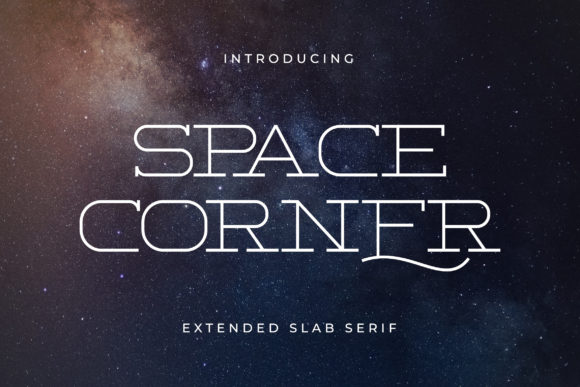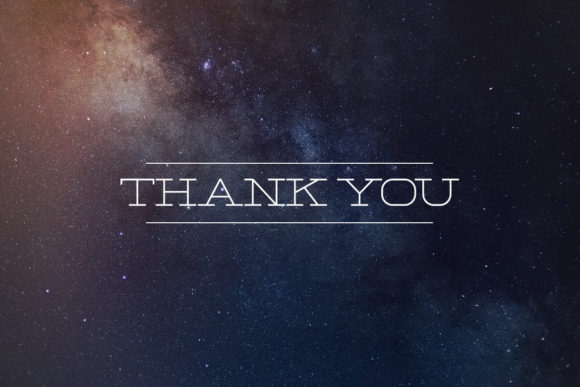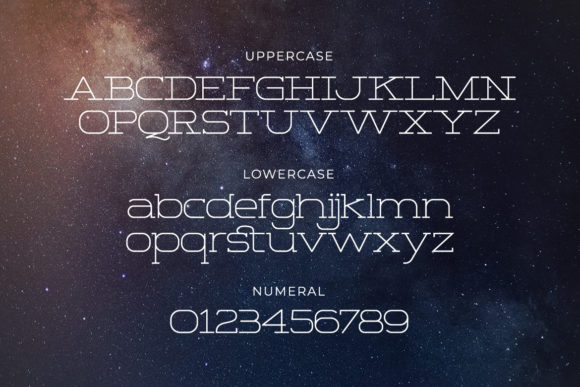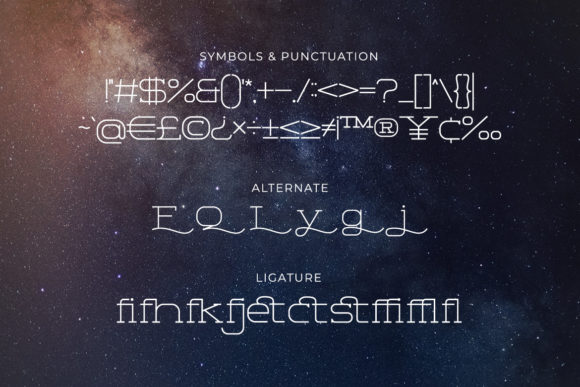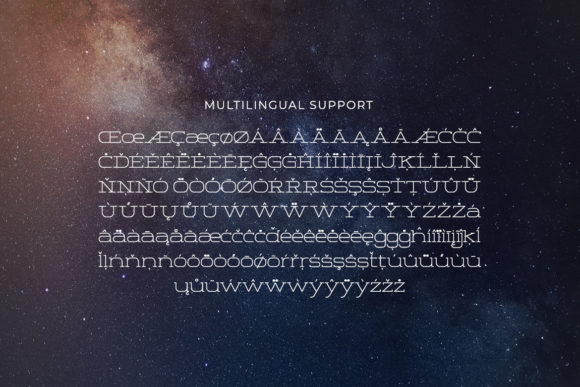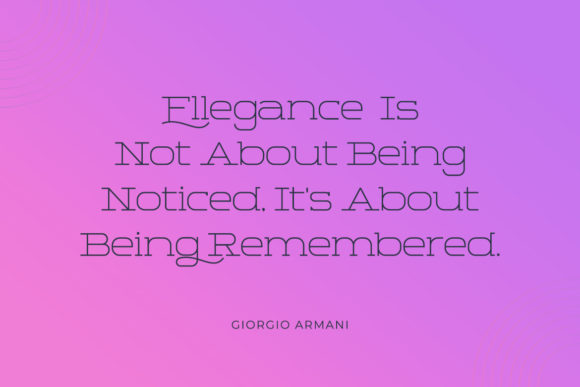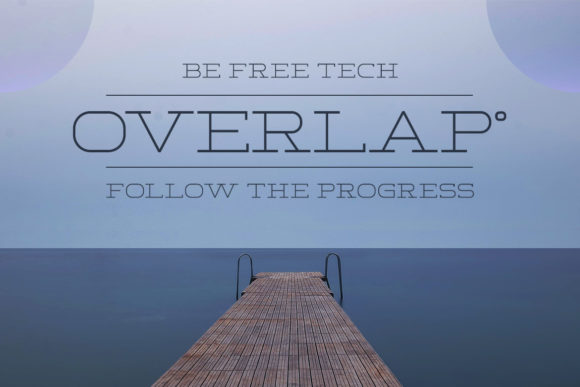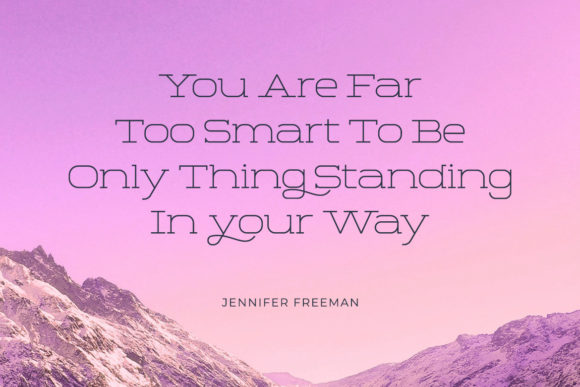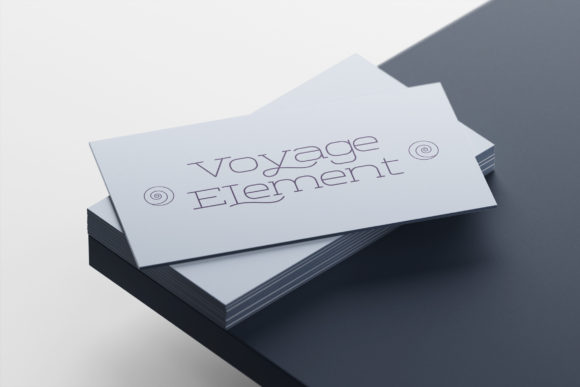
Space Corner
Space Corner: A Clean and Modern Slab Serif Font
Space Corner is a distinctive slab serif font that combines a clean aesthetic with a modern design. This versatile typeface is perfect for adding a minimalist and techno-styled touch to various projects, from web designs to logos and beyond.
Key Features of Space Corner
• Clean Design: Features crisp, uncluttered letterforms for maximum readability.
• Modern Aesthetic: Offers a contemporary look that aligns with current design trends.
• Minimalist Style: Embraces simplicity while maintaining visual impact.
• Techno-Inspired: Incorporates elements reminiscent of technology and futuristic designs.
• Slab Serif Structure: Maintains the characteristic thick, rectangular serifs typical of slab serif fonts.
• Versatile Application: Suitable for a wide range of projects requiring a smart, cool touch.
Ideal Uses for Space Corner
Space Corner’s unique characteristics make it particularly well-suited for:
• Web design and digital interfaces
• Logo creation for tech-savvy brands
• App interfaces and user experience design
• Modern branding and identity projects
• Futuristic or sci-fi themed designs
• Minimalist poster and advertisement layouts
When incorporating Space Corner into your designs, consider the following tips:
• Use for both headlines and short blocks of text to showcase its clean and modern style
• Experiment with different sizes to highlight the font’s unique details
• Consider pairing with complementary sans-serif fonts for body text to maintain a modern look
• Take advantage of its minimalist style in projects that require a sleek, uncluttered appearance
Space Corner is an excellent choice for designers looking to add a clean and modern slab serif font to their typographic toolkit. Its ability to enhance various design projects with a minimalist and techno-styled touch makes it stand out in the world of typography. Whether you’re working on logo designs, creating layouts for web interfaces, or developing content that requires a smart and cool aesthetic, Space Corner offers the perfect blend of cleanliness and modernity.
Add Space Corner to your creative projects and explore how it can elevate your designs with its clean and modern style. From sleek website headers to impactful branding elements, this font provides the tools to create memorable typography that resonates with audiences seeking a contemporary and minimalist look. It’s versatile enough to be used in various contexts, from vintage-inspired designs with a modern twist to playful layouts that need a touch of sophistication.
Whether you’re creating a futuristic and mysterious atmosphere or aiming for a more thoughtful and introspective mood in your designs, Space Corner can adapt to your needs. Its flexibility allows it to work well in both modern, minimalist projects and tech-themed designs that require a clean and contemporary look. For those looking to add a touch of the future with a minimalist feel, this font can even complement traditional designs with a unique, modern twist.